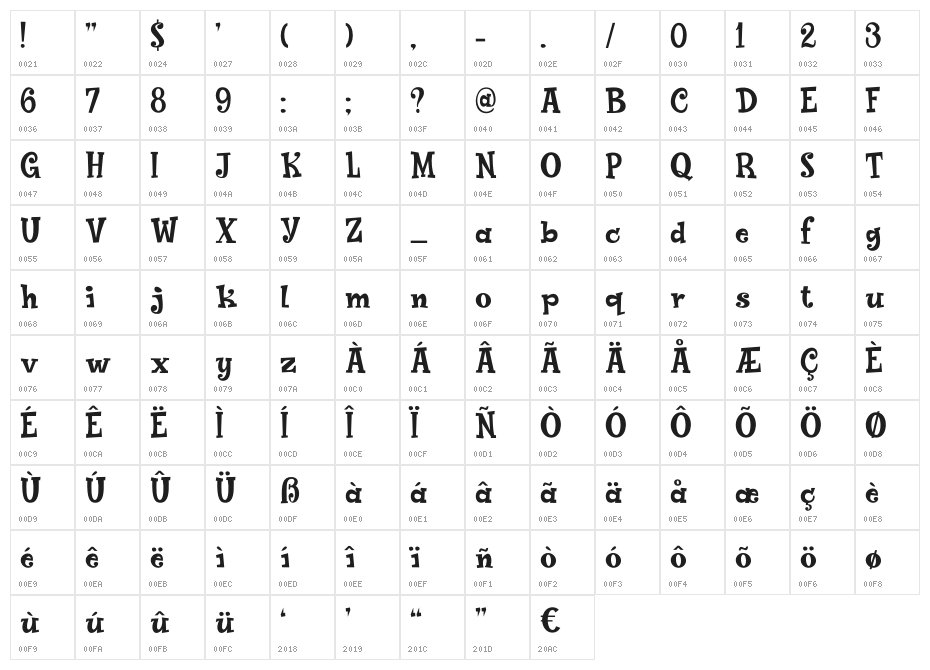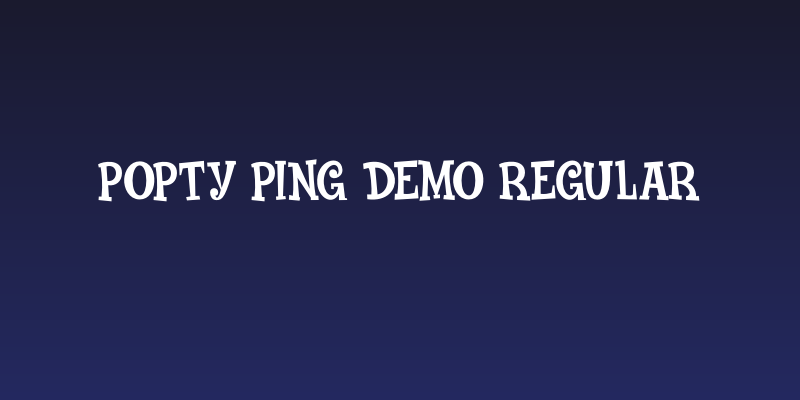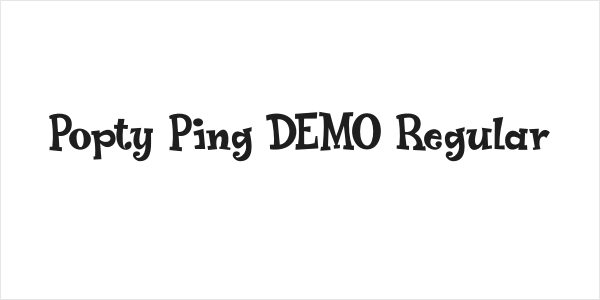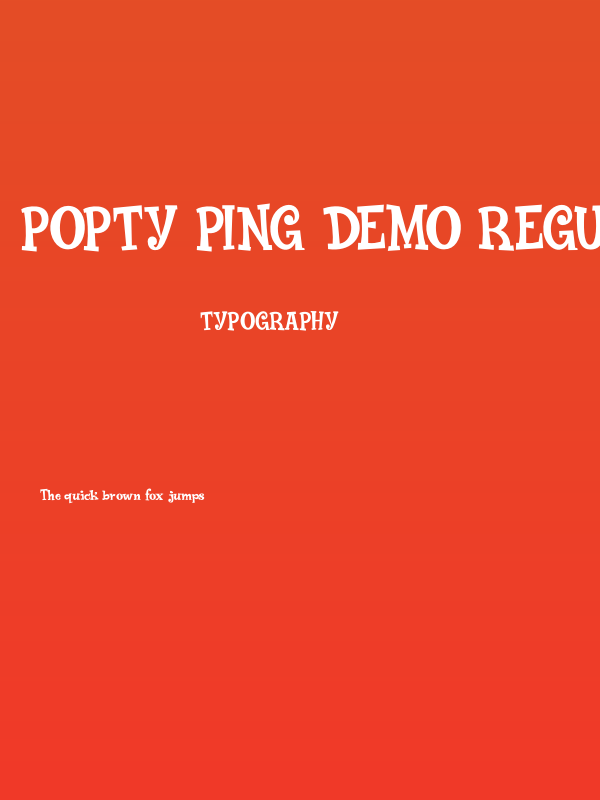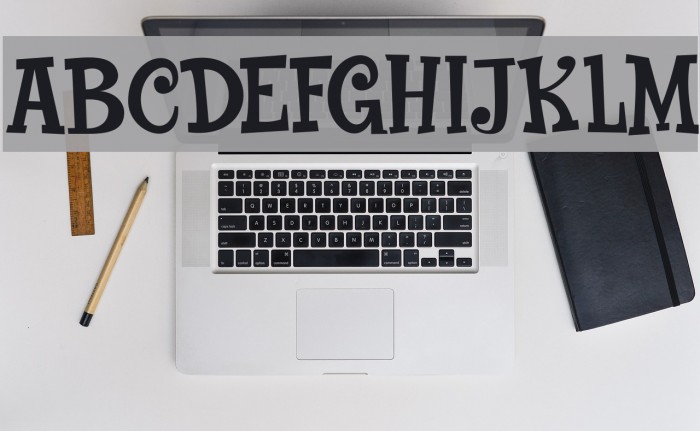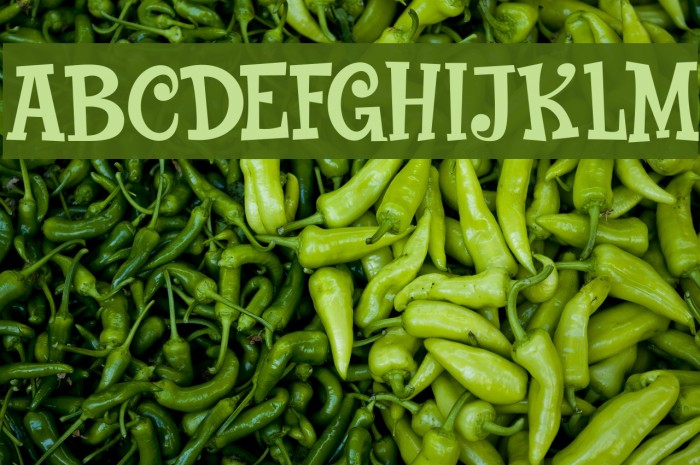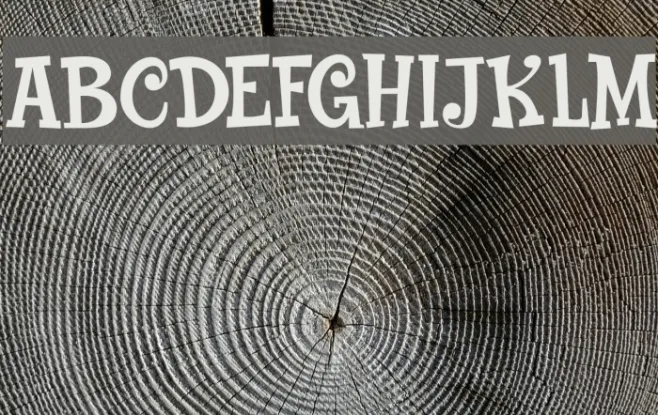
Popty Ping DEMO Regular Font
Popty Ping DEMO Regular Description
This playful and whimsical font features bold, irregular strokes that give it a lively and energetic appearance. The uppercase letters are slightly tilted, adding a sense of movement and fun. The lowercase letters maintain a consistent style with a quirky twist, making them stand out with their unique shapes. Numbers and special characters follow the same playful design, ensuring a cohesive look across all text. The font's distinctive style is perfect for projects that require a touch of humor and creativity.
| Proposed Projects | Ideal for children's books, comic strips, playful branding, and creative posters. |